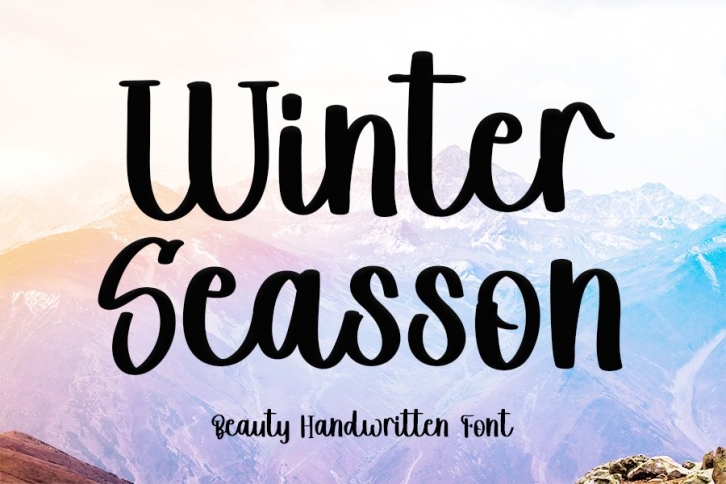
Winter Seasson is a trendy and unique font with an authentic style. It was designed by FreshType INK and it's a great choice for creative people who need such a font. It was released on September 10, 2021 and the file size is 3.12 MB. Winter Seasson will add an organic vibe to any design idea!